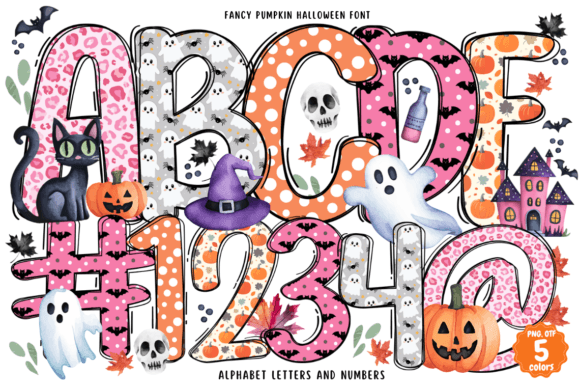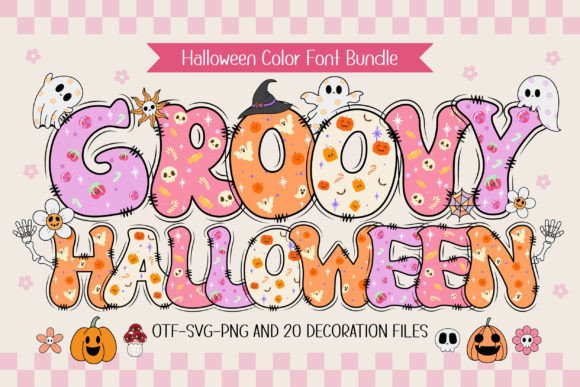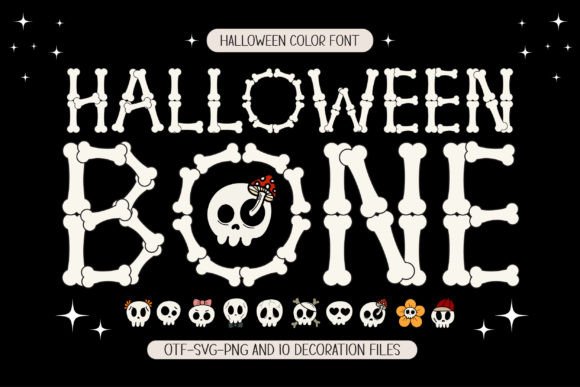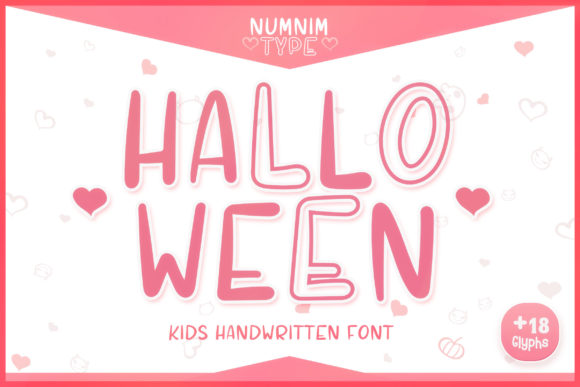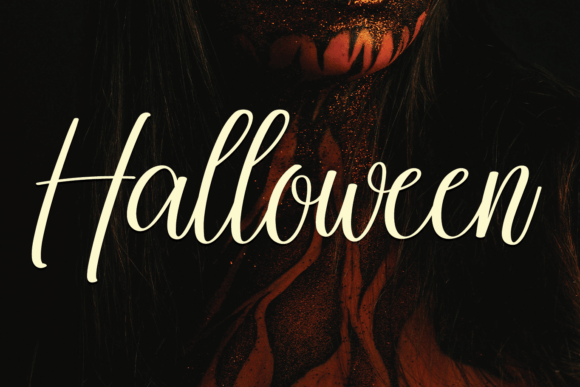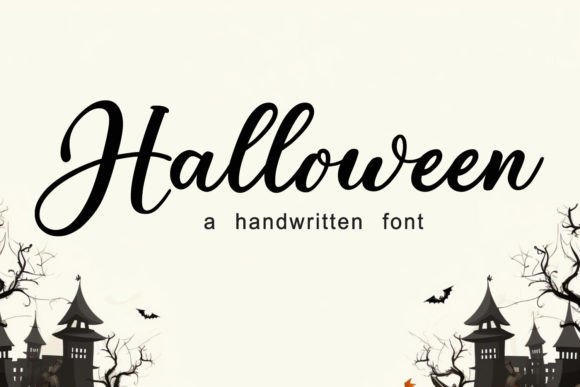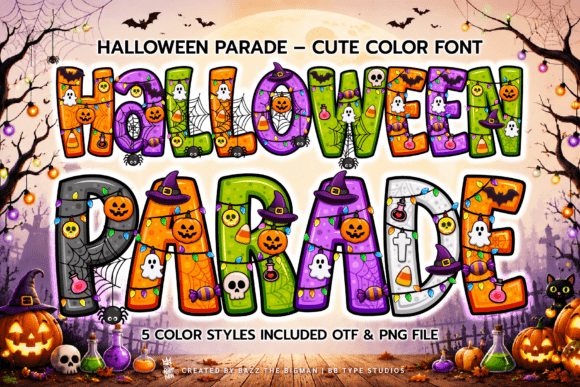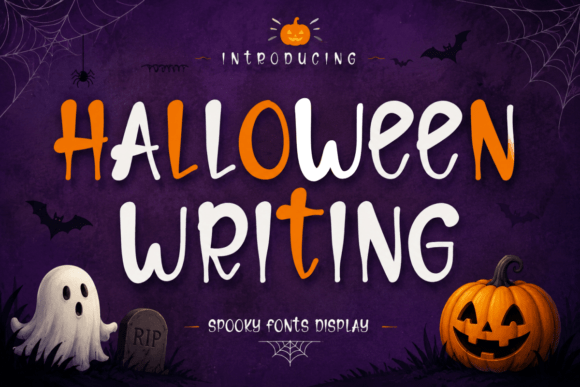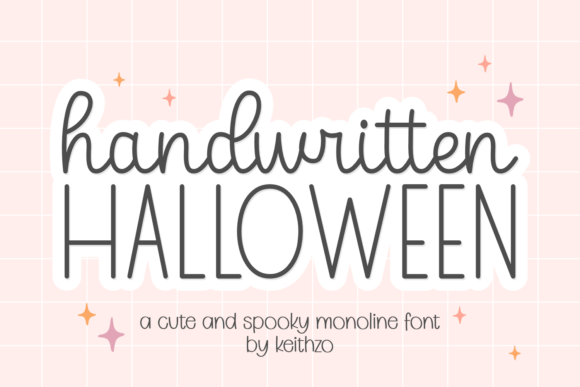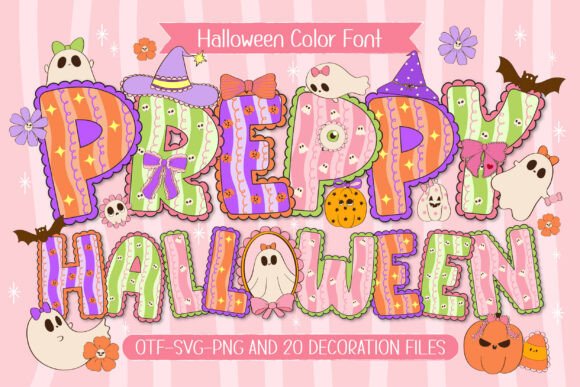
Not every Halloween project needs to look terrifying. Cute halloween fonts trade grunge and gore for rounded shapes, friendly curves, and playful color, which makes them a better fit for classroom decor, kids’ party invitations, and family-friendly branding. Here are 17 cute Halloween fonts across handwritten scripts and color font sets, with notes on where each one works best.
Cute Halloween Fonts for Handwritten and Colorful Designs
Cute Halloween Fonts: Scripts & Handwritten Styles
These read as friendly and personal, ideal for names, short phrases, and party invitations rather than long paragraphs.
Halloween Script Halloween font
1. Halloween Script
Best for: Halloween Decor
A playful, eerie-elegant script that blends spooky charm with genuine cuteness.
Spooky Halloween (Sweet Script) Halloween font
2. Spooky Halloween (Sweet Script)
Best for: Halloween Decor
A sweet, friendly handwritten font with a natural style that fits a wide pool of designs.
Happy Halloween Duo Halloween font
3. Happy Halloween Duo
Best for: Halloween Decor
Two fonts designed to complement each other, PUA encoded for easy access to every swash.
Witchcraft Halloween Duo Halloween font
4. Witchcraft Halloween Duo
Best for: Halloween Decor
A monoline script paired with a stout display sans, simplifying font matching for autumn projects.
Handwritten Halloween font
5. Handwritten Halloween
Best for: Party Invitations
A charming monoline script with smooth curves, great for tumblers, tote bags, and party invitations.
Halloween (Classy Script) Halloween font
6. Halloween (Classy Script)
Best for: Halloween Decor
A simple, friendly, cool handwritten font with a refreshing, contemporary look.
Beastly Halloween font
7. Beastly Halloween
Best for: Halloween Decor
A retro 1950s-inspired font with bold hand-drawn curves, family-friendly and PUA encoded for easy customizing.
Halloween Writing Halloween font
8. Halloween Writing
Best for: Cricut & Cutting Machines
A tall, quirky handwritten display font with clean vector lines for effortless Cricut and Silhouette cutting.
Spooky Halloween (Elegant Script) Halloween font
9. Spooky Halloween (Elegant Script)
Best for: Party Invitations, Logos & Branding
A soft, feminine script with gentle strokes, fitting for branding, titles, and wedding-adjacent invitations.
Halloween (Calligraphic) Halloween font
10. Halloween (Calligraphic)
Best for: Halloween Decor
An exquisite handwritten font with classy calligraphic influences that still feels fresh and contemporary.
Cute Halloween Fonts: Color & Novelty Styles
Several fonts below are color OpenType-SVG fonts. These work in Photoshop, Illustrator, and Silhouette, but not with a Cricut blade unless a plain black version is included, since Cricut cuts a single outline rather than layered color. Check each product page before buying if Cricut compatibility matters for your project.
Fancy Pumpkin Halloween font
11. Fancy Pumpkin Halloween
Best for: Posters & Flyers, Cricut & Cutting Machines
A whimsical handwritten color font (OpenType-SVG) for school activities and holiday posters; works with Photoshop, Illustrator, and Silhouette, not with Cricut cutting.
Halloween (Color, Kid-Friendly) Halloween font
12. Halloween (Color, Kid-Friendly)
Best for: Party Invitations, Cricut & Cutting Machines
A whimsical, colorful font popular for children’s books and invitations; the black version cuts fine on Cricut, the color version needs Photoshop, Illustrator, or Silhouette.
Halloween Parade Halloween font
13. Halloween Parade
Best for: Party Decor
A vivacious SVG color font where every letter is decorated with pumpkins, ghosts, and string lights.
Groovy Halloween (Color) Halloween font
14. Groovy Halloween (Color)
Best for: Cricut & Cutting Machines
A retro color font with 4 styles and 20 bonus clip arts; the black version works with Cricut, the color version needs Photoshop, Illustrator, or Silhouette.
Preppy Halloween font
15. Preppy Halloween
Best for: Halloween Decor
Can I use a color Halloween font with Cricut?
Only if the listing includes a separate black cutting-ready version. Pure color OpenType-SVG fonts are built for Photoshop, Illustrator, and Silhouette rather than Cricut’s blade-cutting workflow.